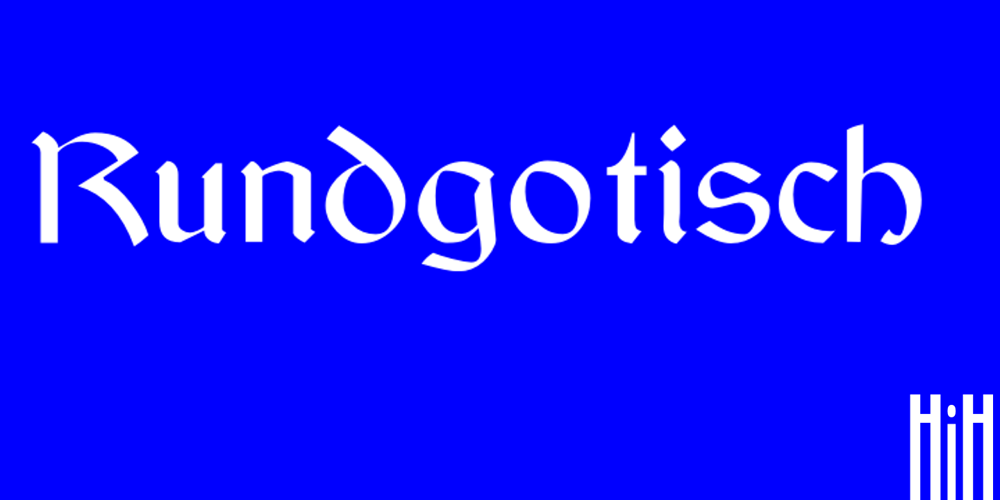
Rundgotisch
Rundgotisch Font Family was designed by published by HiH. Rundgotisch contains 1 styles and family package options. One of my favorites. Rundgotisch is a easy to read for eyes that are accustomed to roman letterforms, yet keeps in touch with its blackletter roots. It was released around 1900 by Schelter & Giesecke of Leipzig, Germany. Can be used to set short text passages and pairs easily with many different decorative initials of the period. A very useful typeface. Don’t leave home without it. According to Bringhurst, Schelter & Giesecke was formed in 1819 by Johann Gottfied Schelter and Christian Friedrich Giesecke. This old German printing house was sucked up by state-owned Typoart in 1946, after Marshall Zhukov and the Red Army had established Soviet dominion over East Germany.